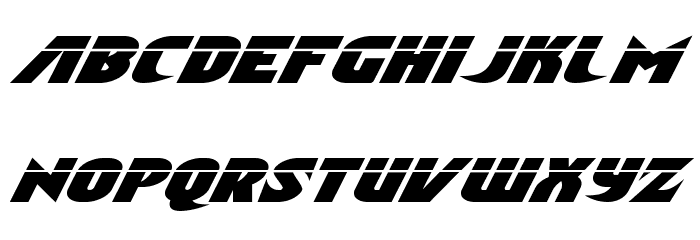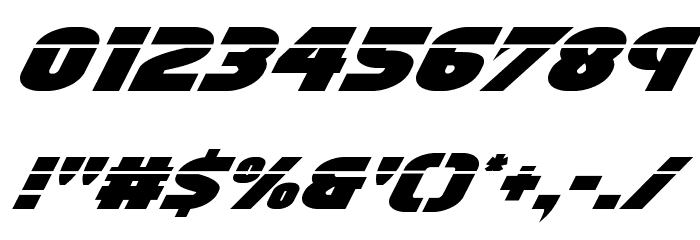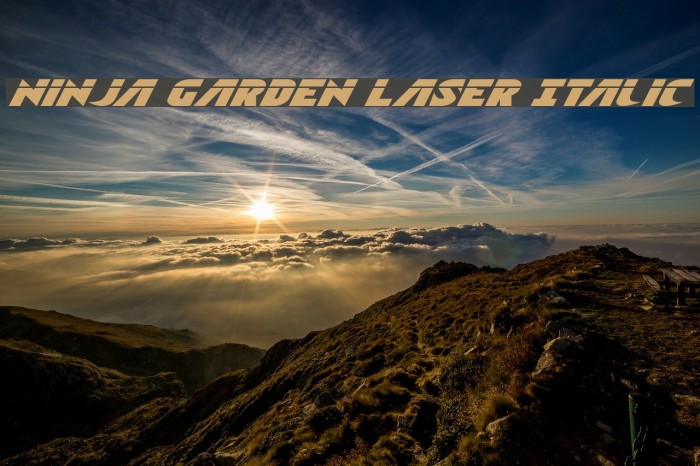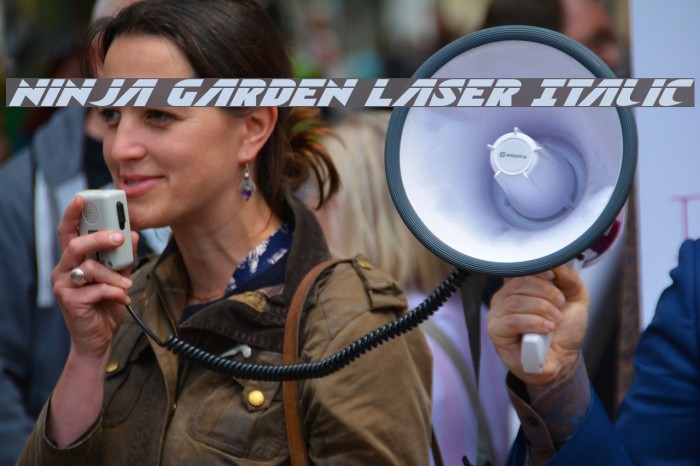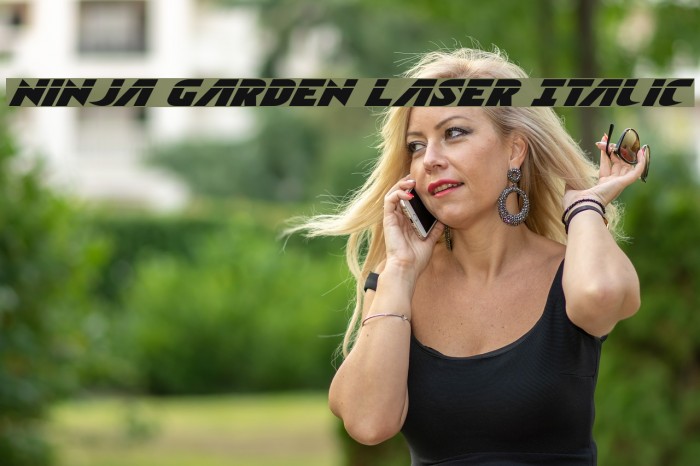
Ninja Garden Laser Italic Font
This font features a bold and dynamic style with a strong italic slant, giving it a sense of motion and energy. The characters are wide and have a futuristic, almost sci-fi appearance, with sharp angles and clean lines. The uppercase and lowercase letters maintain a consistent style, while the numerals and special characters complement the overall design. The font's thick strokes and geometric shapes make it highly legible and impactful, suitable for attention-grabbing designs.
A bold, italic font with a futuristic and dynamic style.
- Proposed Projects: Ideal for use in video game titles, movie posters, sports branding, and any project requiring a modern, energetic look.
- Width: Expanded